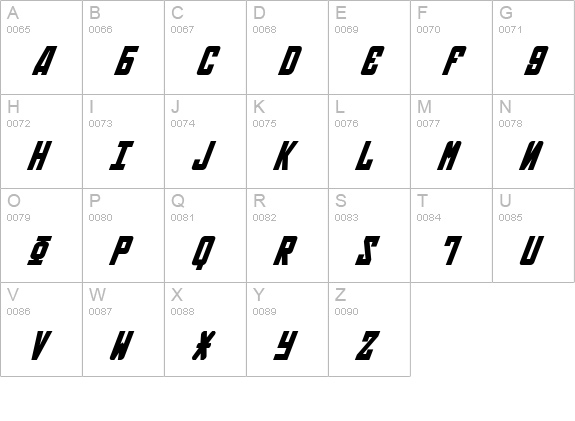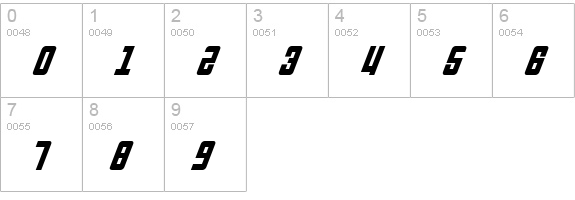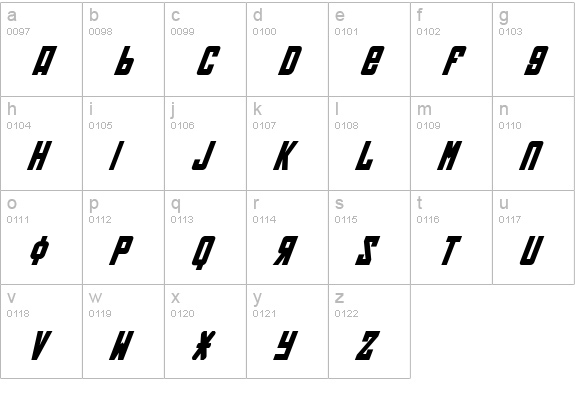
Soviet Bold Italic is a strong, high-contrast, italic variant in the Soviet typeface family \xE2\x80\x94 well suited to headlines, attention-grabbing titles, and strong calls-to-action.
Soviet Bold Italic font is a stunning typographic masterpiece that combines the strength and power of the Soviet aesthetic with a touch of elegance and sophistication. Its bold and italicized characters exude confidence and authority, making it the perfect choice for projects requiring a strong visual impact. With its distinctive letterforms and unique design, Soviet Bold Italic font captures the essence of the iconic Soviet era, where boldness and innovation were celebrated. Each character is meticulously crafted, ensuring a seamless blend of boldness and style, making it an ideal choice for headlines, logos, posters, and any design project that demands attention. What makes Soviet Bold Italic font even more remarkable is that it is completely free to download at FontsMarket.com. This means that regardless of your budget or design needs, you can enjoy the beauty and versatility of this extraordinary font without any cost. FontsMarket.com provides a vast collection of fonts, ranging from classic to modern, ensuring that you find the perfect match for your creative endeavors. Download Soviet Bold Italic font today and let its bold, italicized charm enhance your designs. Whether you are working on a branding project, a magazine layout, or a website design, this font will undoubtedly make a lasting impression. Its bold strokes and slanted angles will add an extra layer of visual interest, elevating your work to new heights. Unlock the power of Soviet Bold Italic font and bring a touch of Soviet-inspired excellence to your designs. Don't miss the opportunity to freely access this exceptional font at FontsMarket.com - your go-to resource for high-quality fonts that inspire creativity and elevate design.